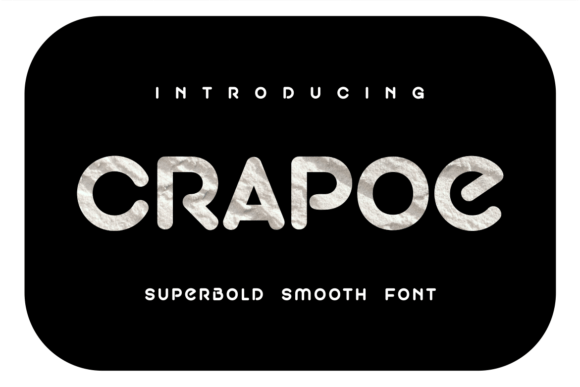
Behold Crapoe Font, the ultimate font for bold, impactful designs that demand attention. This extraordinary font, hailing from the Monoletter family, is the epitome of rounded, super-bold typography. It's a game-changer for marketing projects seeking compelling and persuasive visuals.
Crapoe Font exudes a distinctive appearance, making it the perfect choice for creating eye-catching headlines, captivating covers, and bold company names. Its thick, rounded strokes command presence, while its smooth curves add a touch of elegance. This font is a master of versatility, equally suited for magazine products, membership cards, and even the names of prominent corporations.
With Crapoe Font, satisfaction is guaranteed. Its carefully crafted characters are designed to deliver a visually stunning experience, leaving an indelible mark on your audience. Its strength and boldness are sure to leave a lasting impression, making it the font of choice for businesses seeking to make a statement.
Crapoe Font is more than just a collection of letters; it's a tool that empowers you to communicate your message with unwavering confidence. Its bold and assertive nature is perfect for capturing attention and driving action. Whether you're creating marketing materials, designing logos, or crafting social media graphics, Crapoe Font will elevate your designs to new heights.
So, embrace the power of Crapoe Font and unleash your creativity. Let its bold strokes and captivating curves work their magic, leaving your audience spellbound. Experience the difference that Crapoe Font can make in your designs and watch as your marketing efforts soar to new heights.